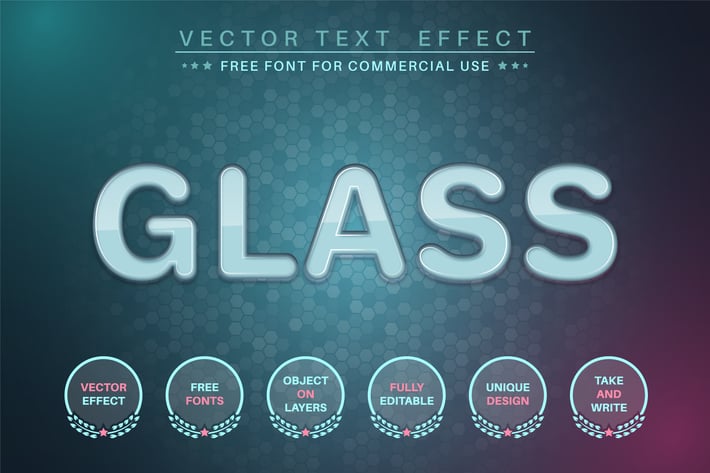
Cloudy glass - editable text effect, font style
Hello! I'm happy to introduce my new text effect "Cloudy glass". Just write your word and the effect will apply! Be as creative as you like to be in expressing yourself using this unique “Cloudy glass”. Effect is perfect for any project that needs a unique handy touch whatever else your imagination leads you to!